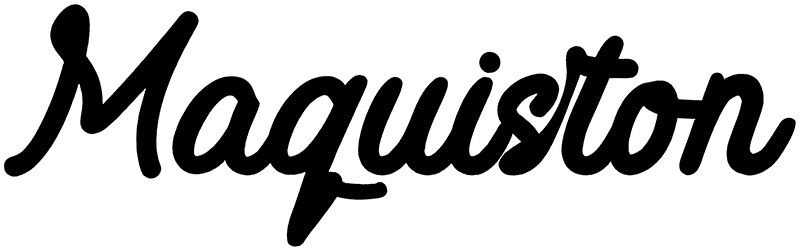
Maguiston Font
Use a modern pen-lettering style for your new project to have a cool and realistic presentation. This cursive font with its cursive visual is an ideal choice for many titles, such as a fashion magazine, a designer’s business card, and so on. Test Maguiston font to showcase your creative idea in a cool and appealing visual.